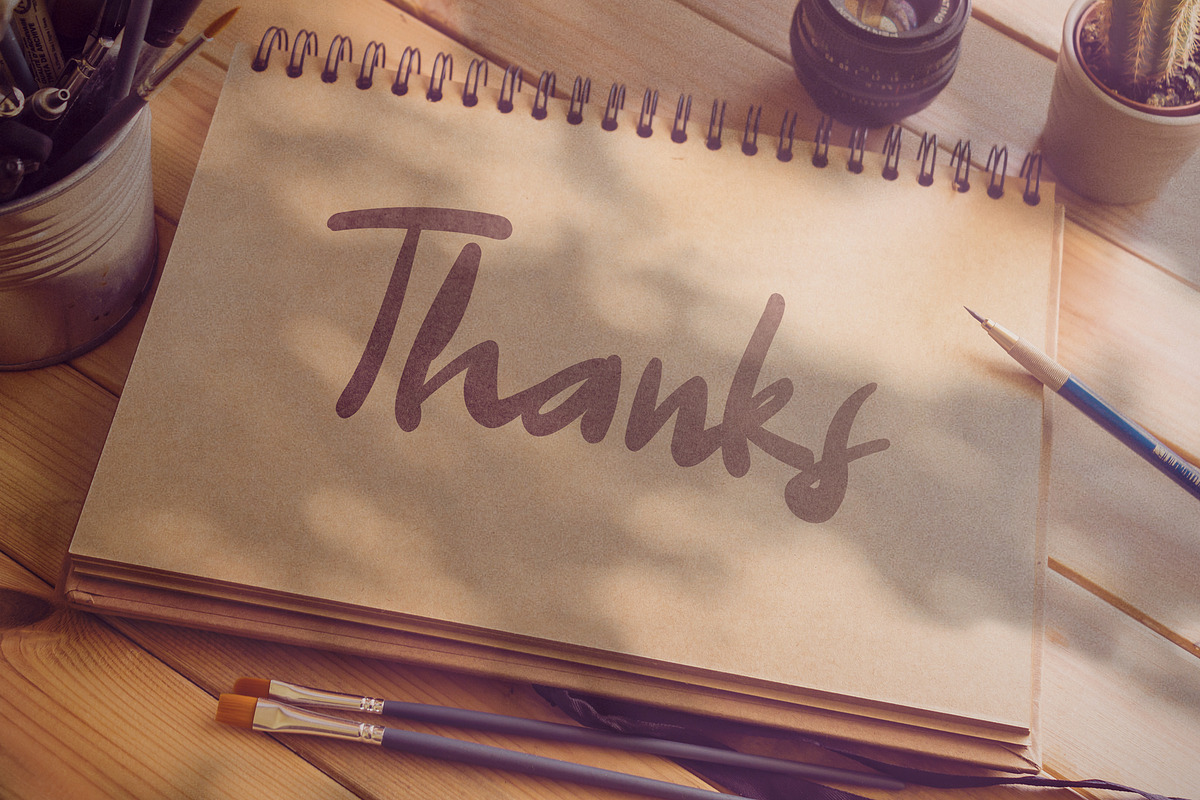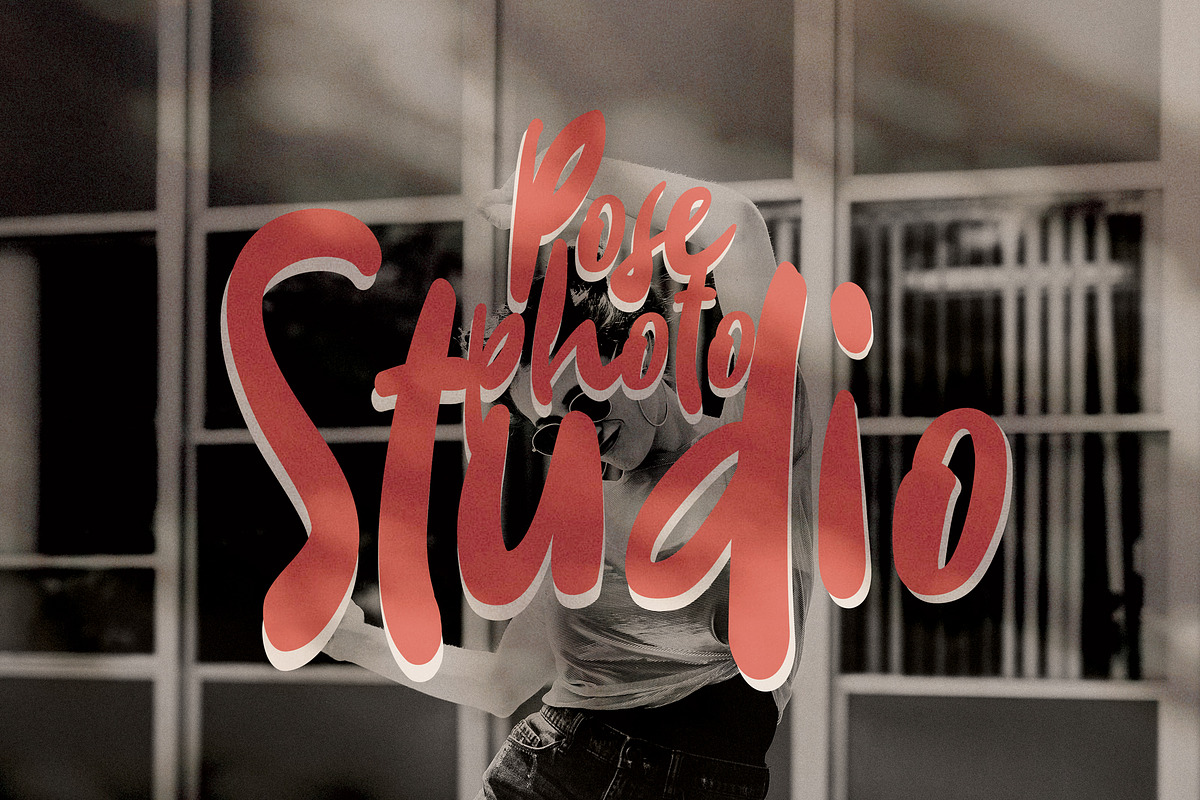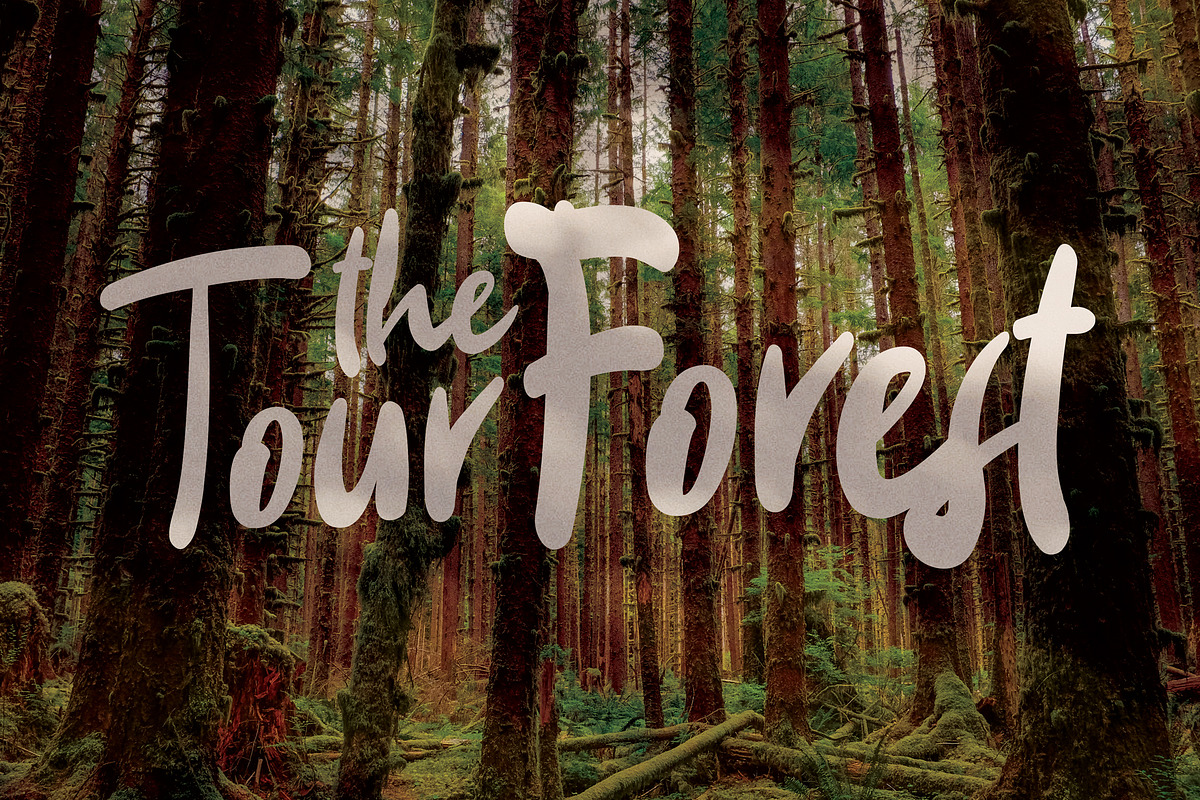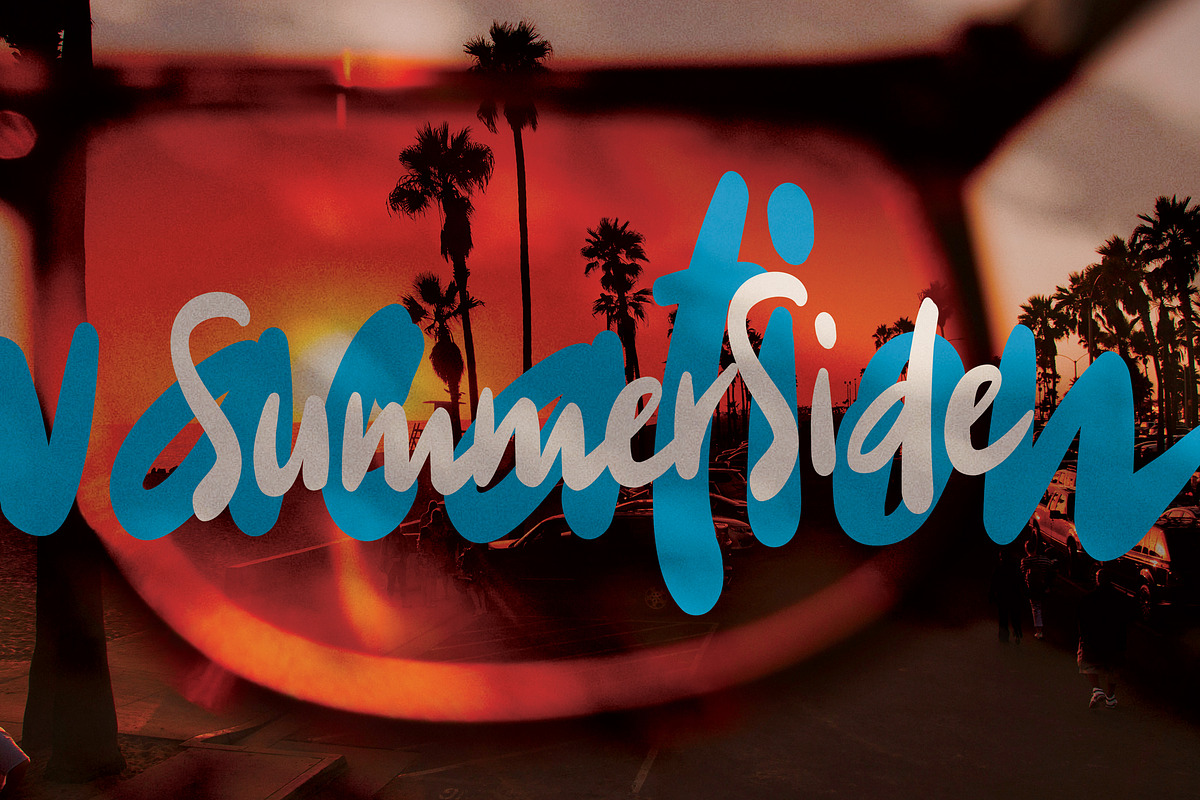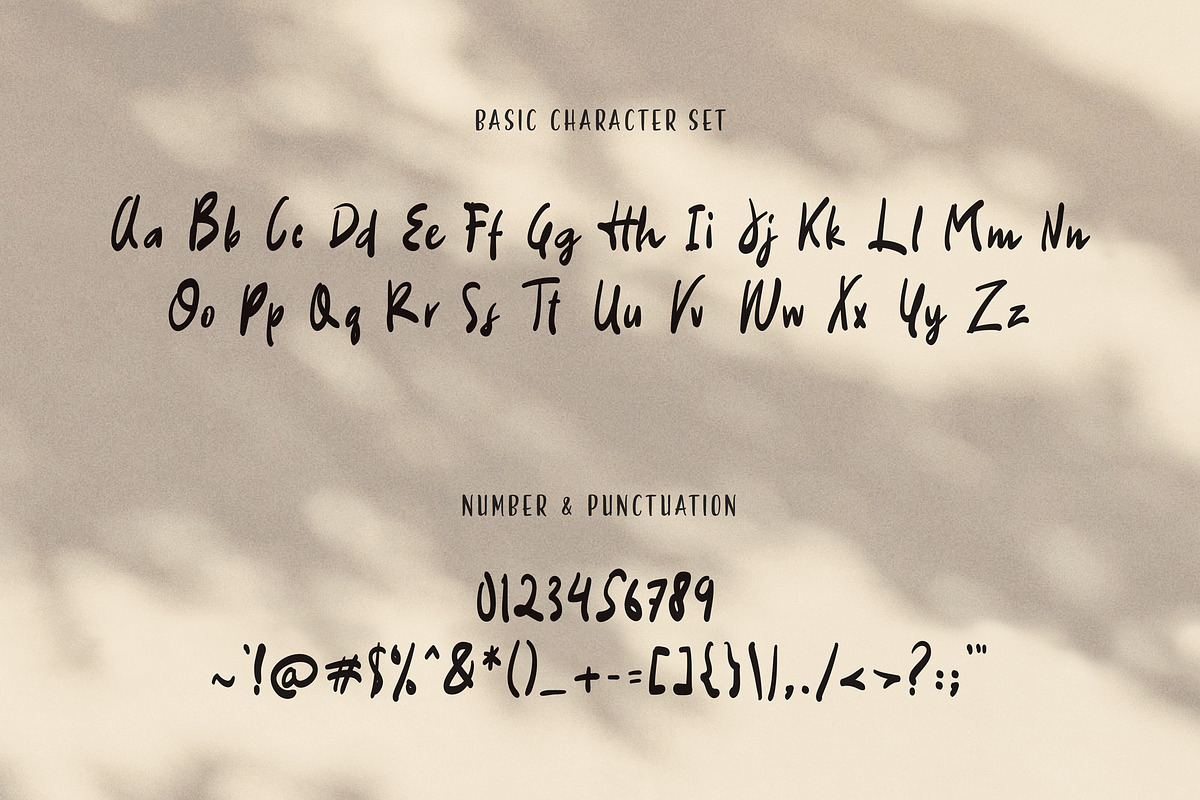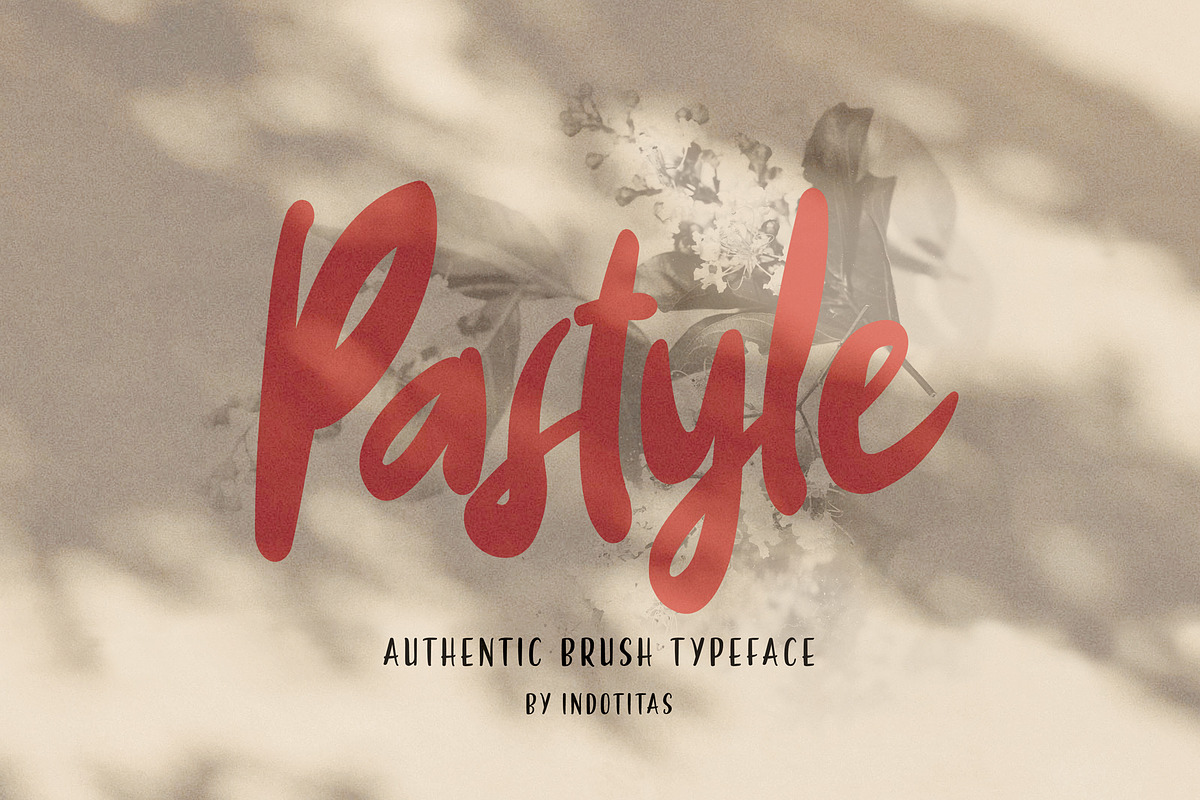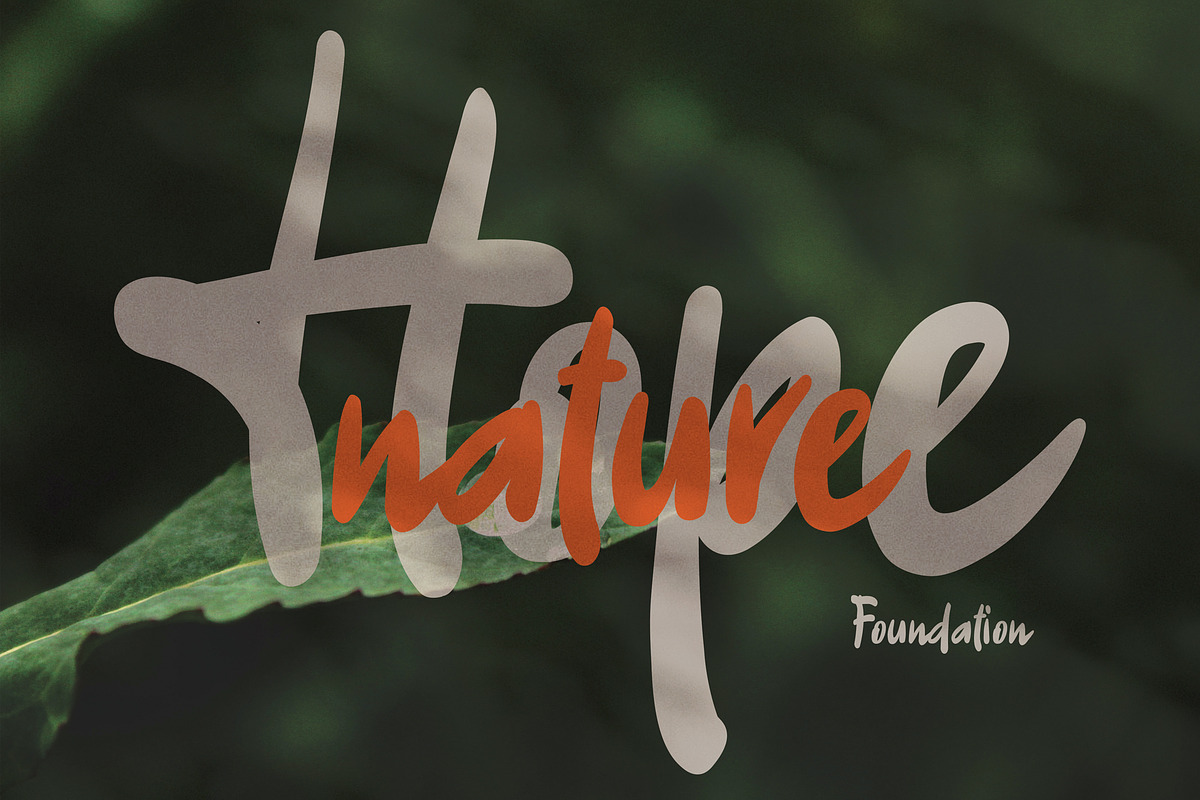
Pastyle
Pastyle created with authentic modern stylistic brush characters. This authentic brush typeface was PUA encoded. This typeface comes with stylistic Uppercase and Lowercase character set. Pastyle works perfectly for logos, display, product branding, wedding invitation card, stationary, packaging, clothing, flyer, apparel, magazines, brochures, label, posters, badges, etc.
- Opentype Feature